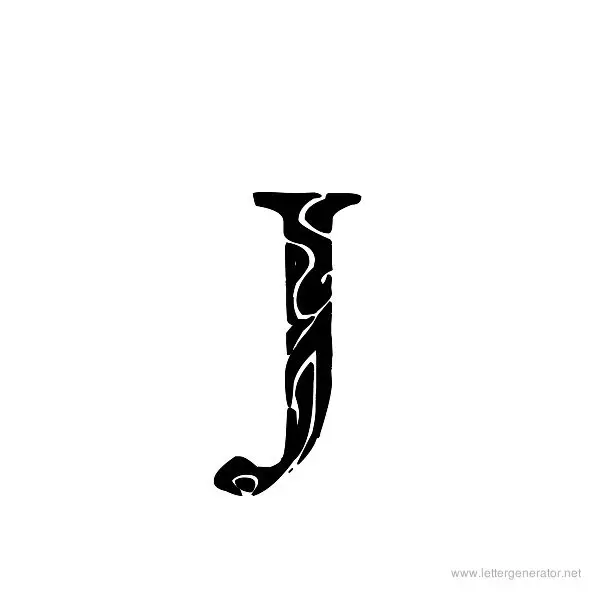
I love this design and it can be made of the arm of the wearer. These J letter tattoo designs are done in dual colors of red and black.
Free tattoo fonts tattoo lettering design best tattoo fonts tattoo font for men cursive tattoos design your own tattoo. Elegant Letter J Tattoo Design. Its enough to make you lose your mind day by day.
Aug 16 2018 - Design your individual tattoo with lots of of tattoo lettering kinds. Go Italics Handwriting Elegant Weird Arabic Ancient. This J letter tattoo design is bold and only the outline has been done.
Lettering styles include tribal traditional sailor blackletter fancy cursive script etc.